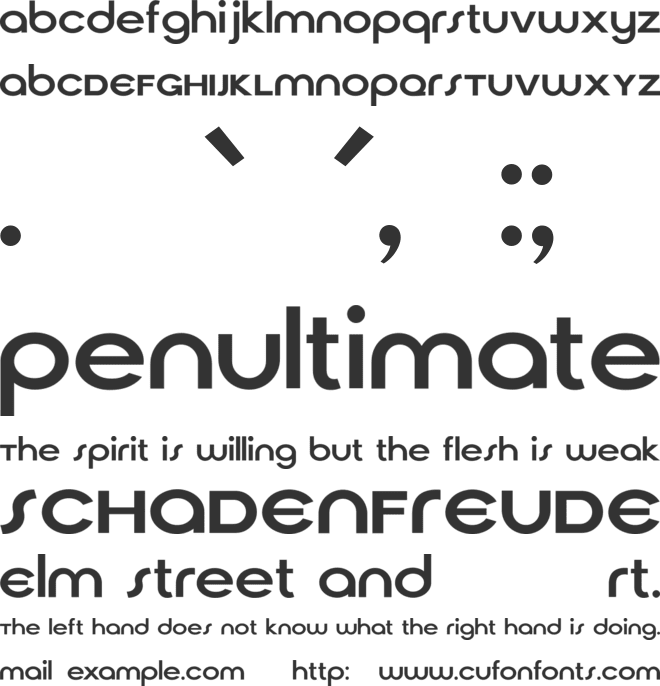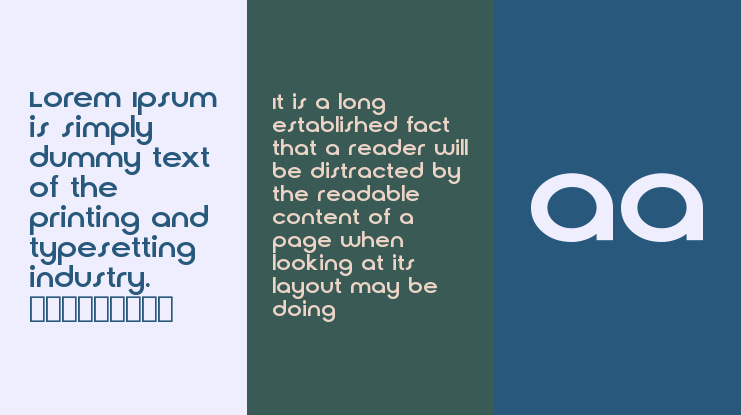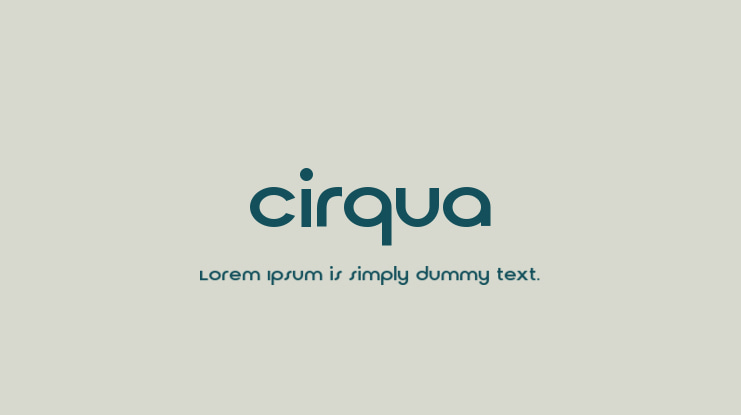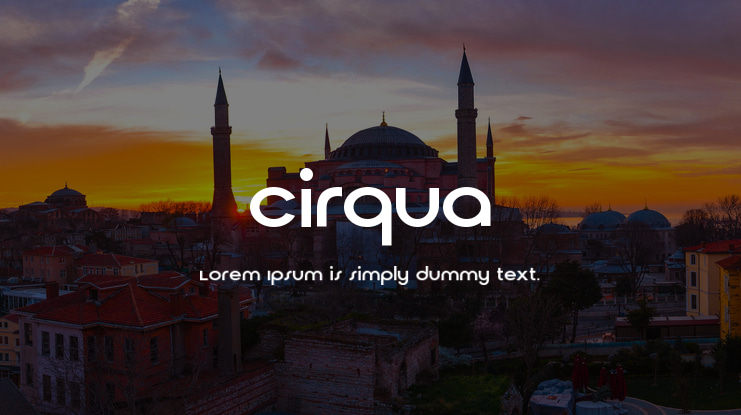
Cirqua Font
This is another font that started life as a logo design project. The project was shelved and my intention was to finish the font as a standalone project, but other commitments have made this impossible.
The font was originally going to contain only lower case characters, but I've mapped a set of characters to the upper case slots, which contains a few capital forms.
Update 02/08/14 (2nd August 2014) - Version 2.1 has been released. Around 200 characters have been added, covering a decent range of European languages.